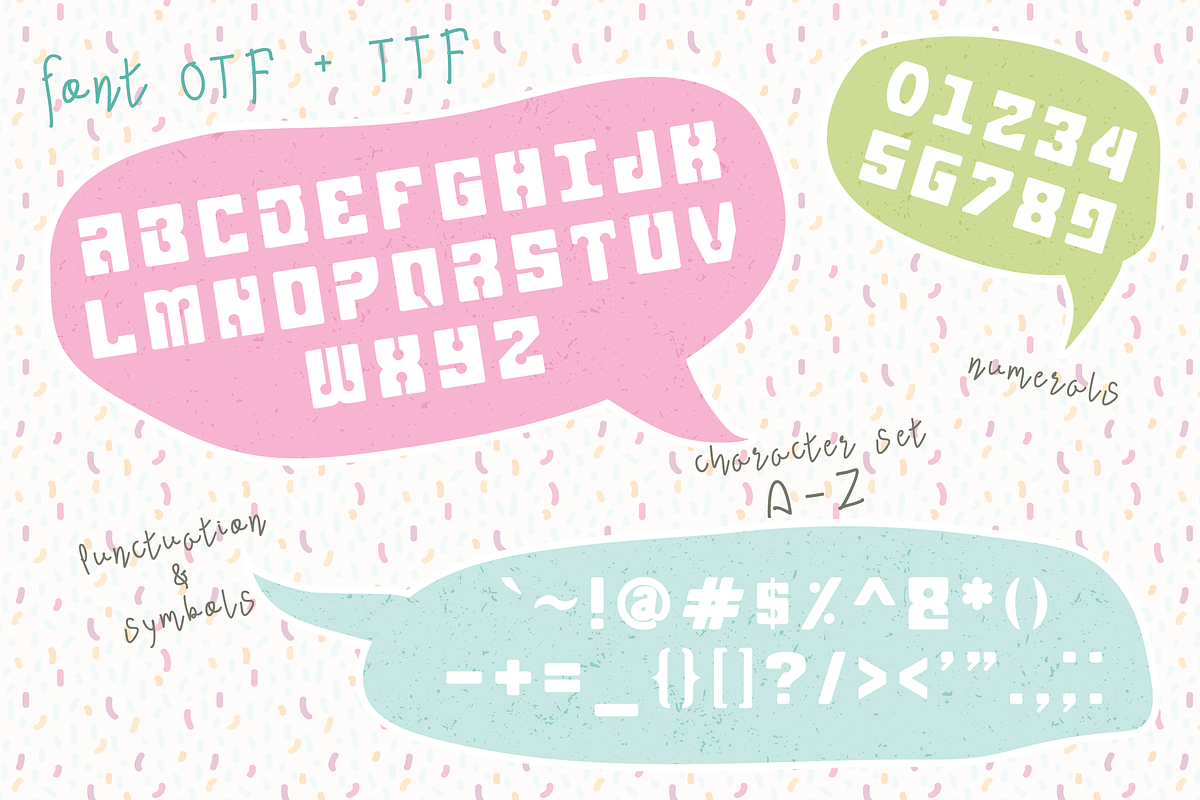
Pink Lemonade - retro display font
Pink Lemonade - retro display font by Watercolor Nomads is a font selected for branding, posters, packaging, typography.
Why Pink Lemonade - retro display font is worth a look
Pink Lemonade - retro display font by Watercolor Nomads fits naturally into Branding, posters, packaging, typography.